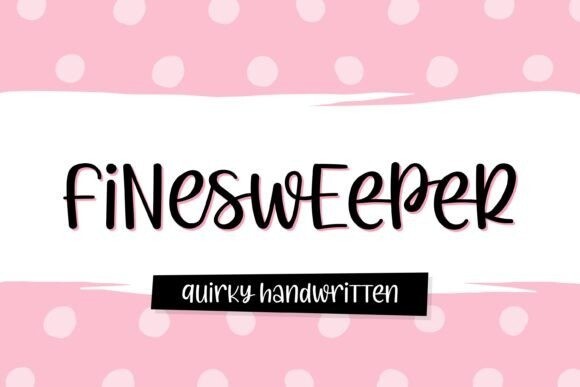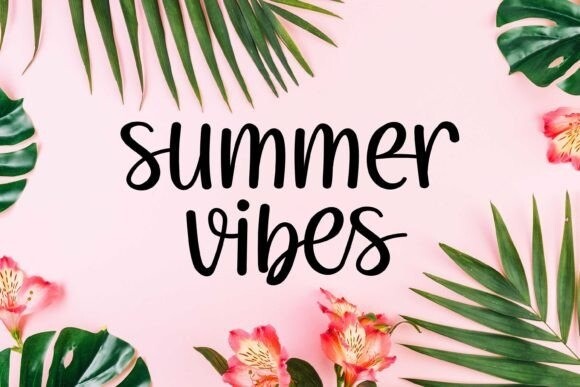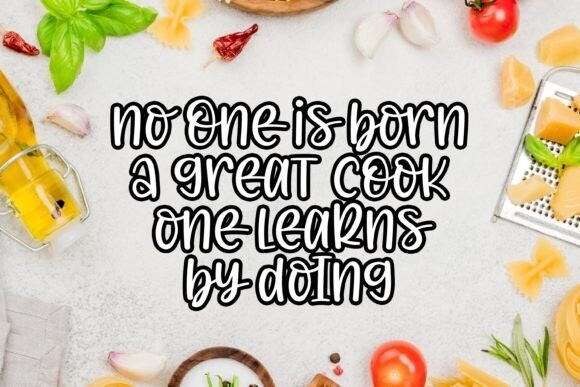
Finesweeper Font
Finesweeper is a unique and quirky handwritten font. It allows you to bring a playful vibe with its natural handwriting touch and authentic style. This font is a perfect match for design projects such as poster design, print ads, digital ads, headlines, t-shirts, crafts, and so on. This font is PUA encoded which means you can access all of the amazing glyphs and ligatures with ease!